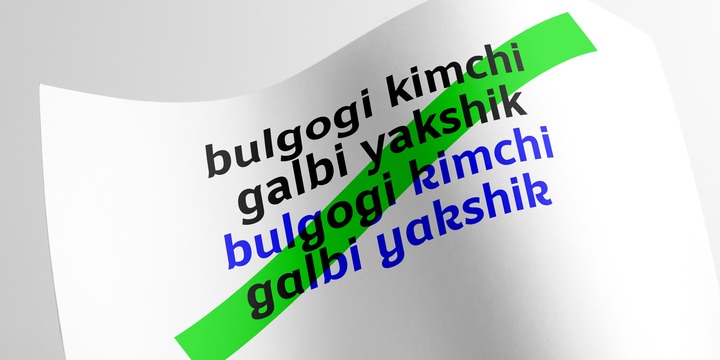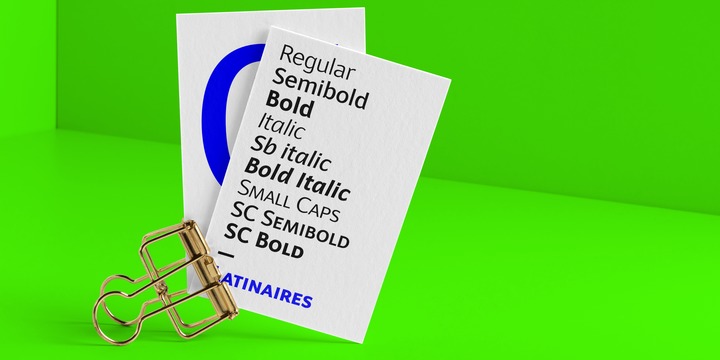
Latinaires Pro is a new version of one of the first published Sudtipos typefaces. Now covering more latin languages and extended to 9 fonts, Latinaires is specially designed for modern brand communication and editorial use.